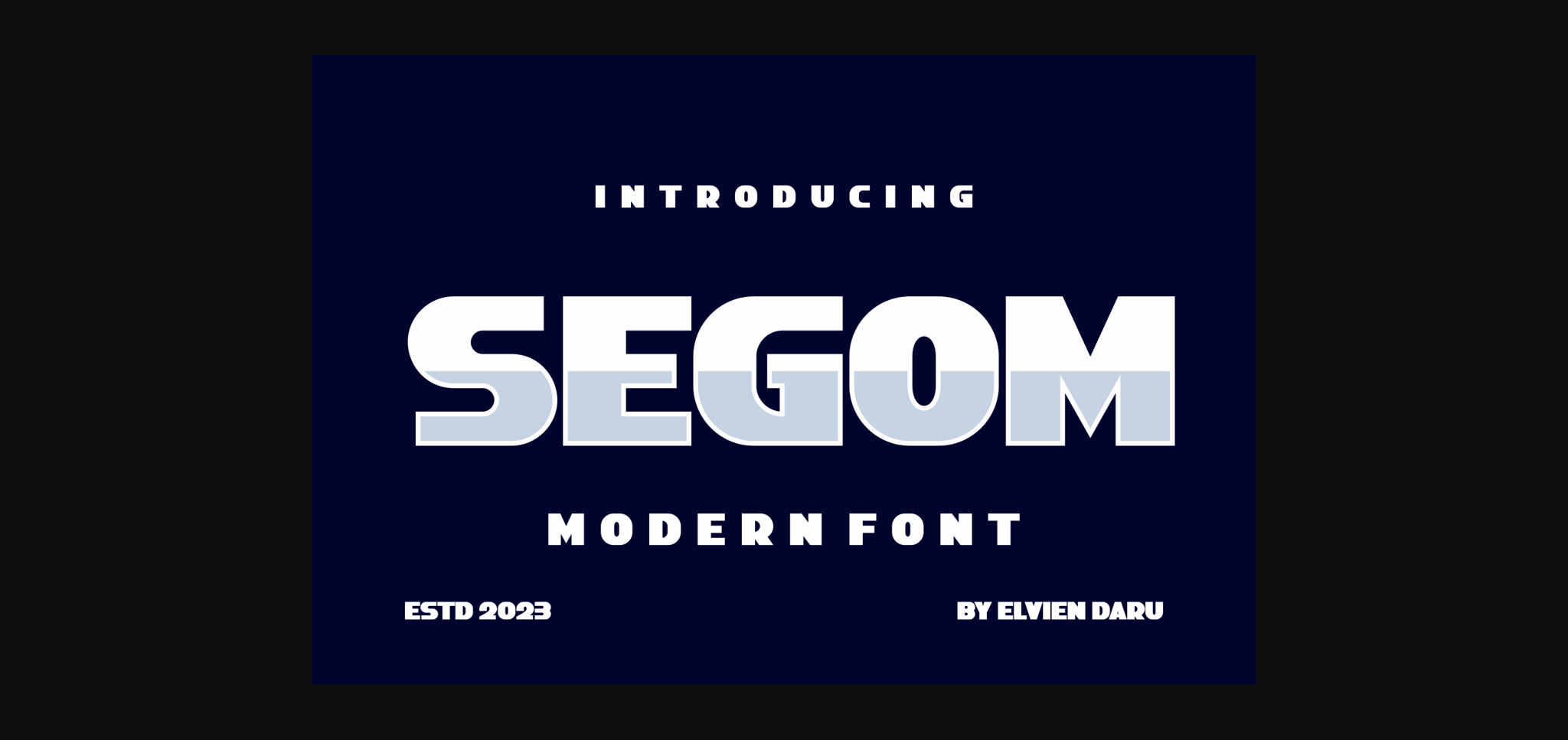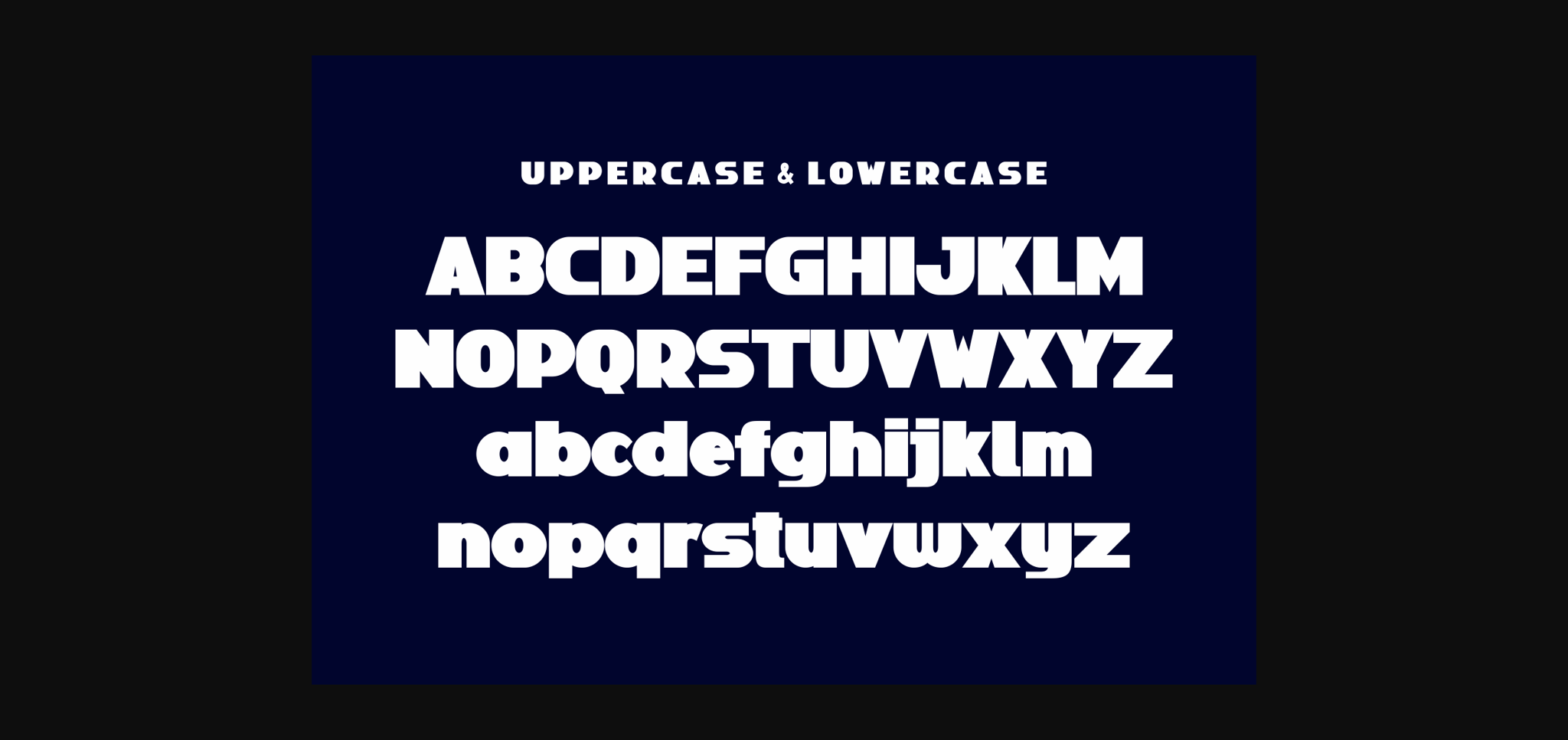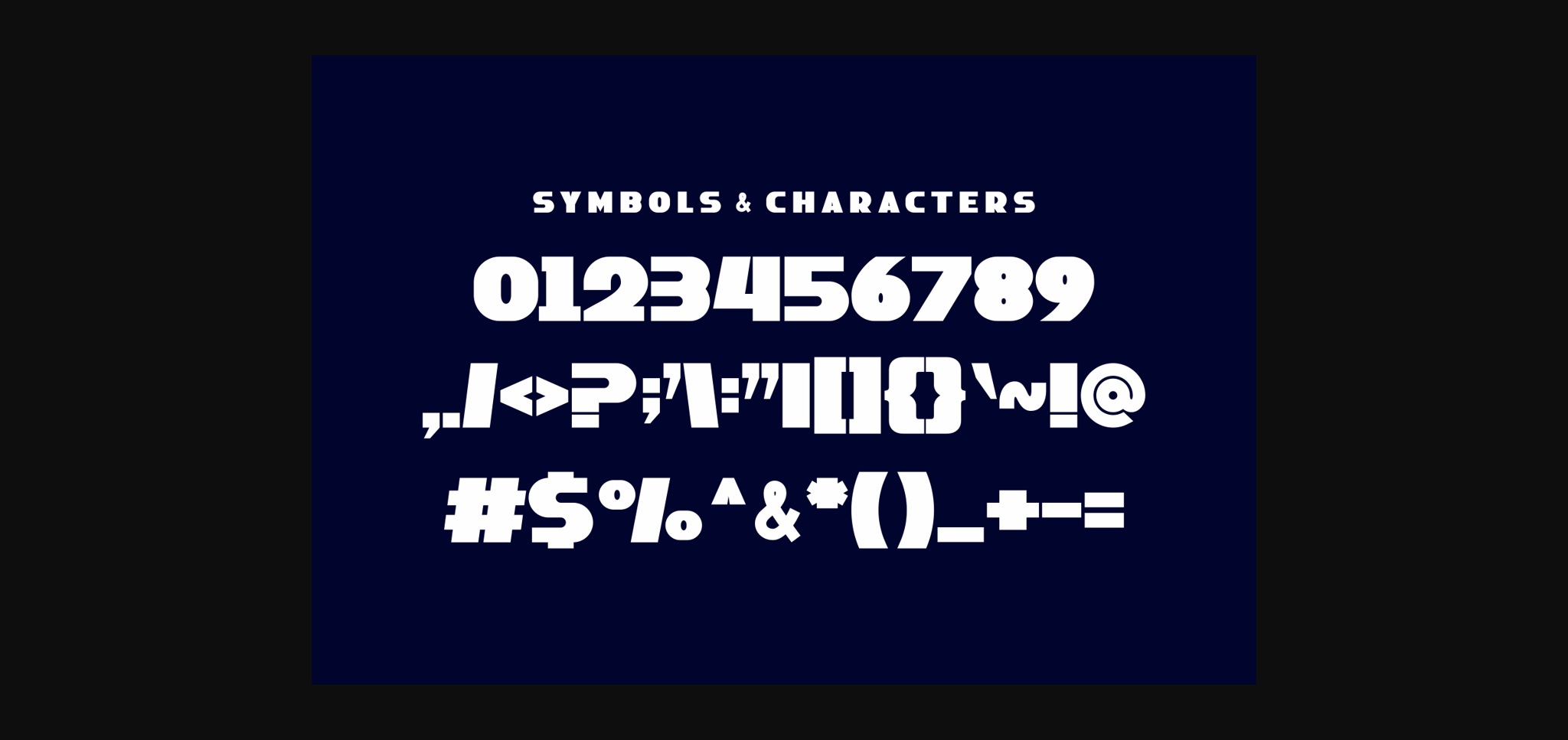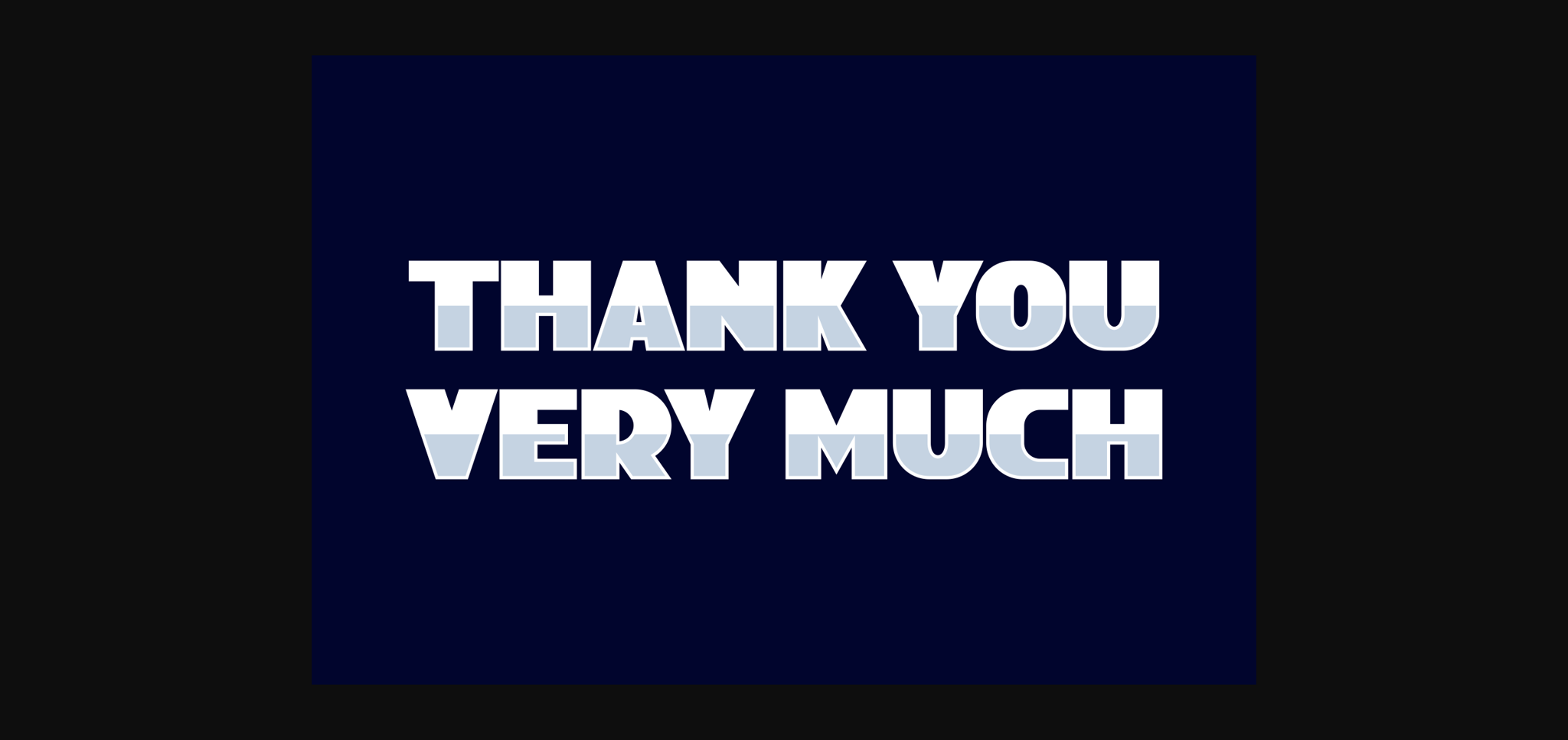
About Segom Font
**Segom**
Perfectly suited on print/screen. itβs perfect for Branding, name card, poster, logo, magazine,
cover, banner, t-shirt and headers, or even large-scale artwork.